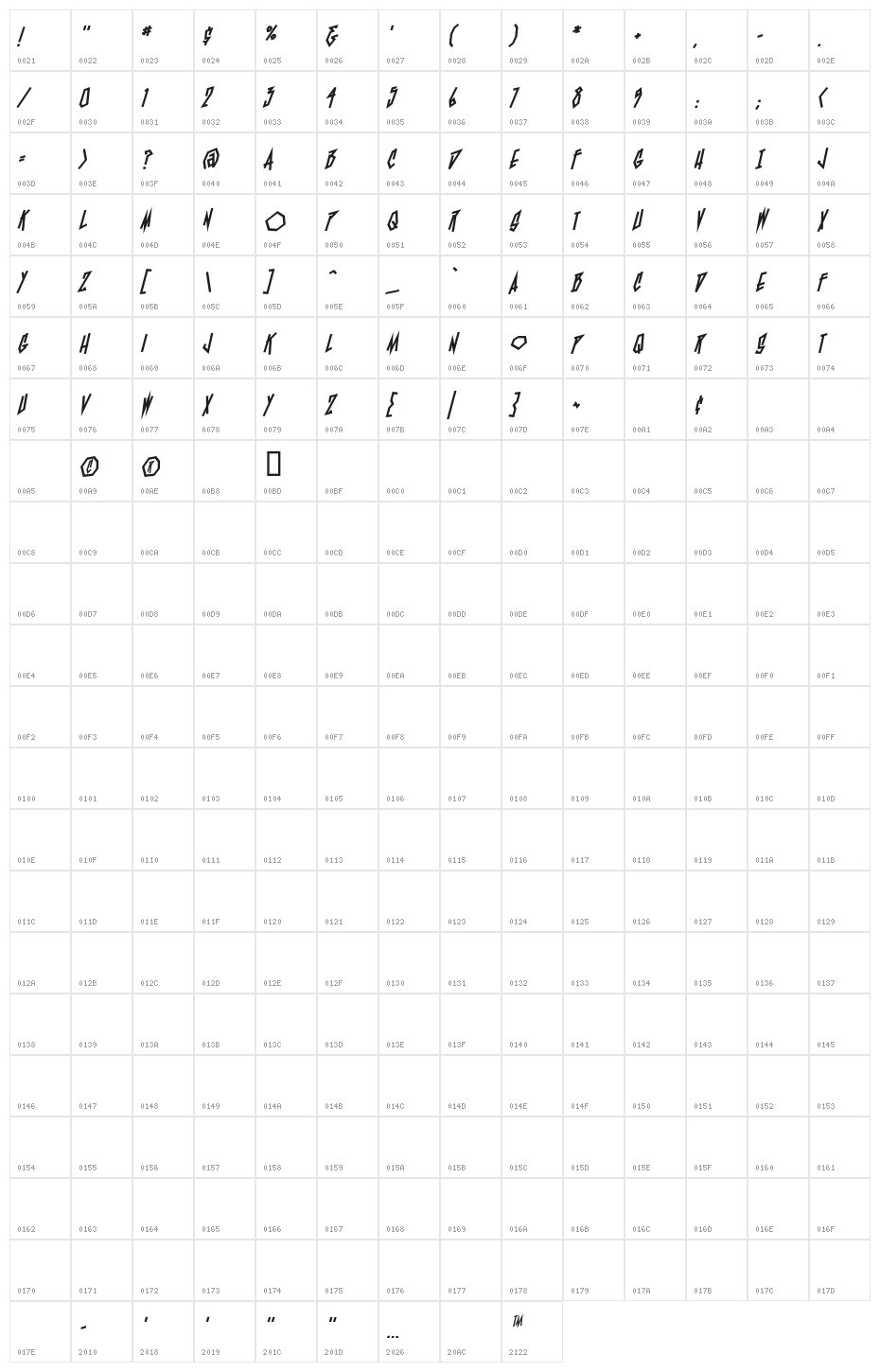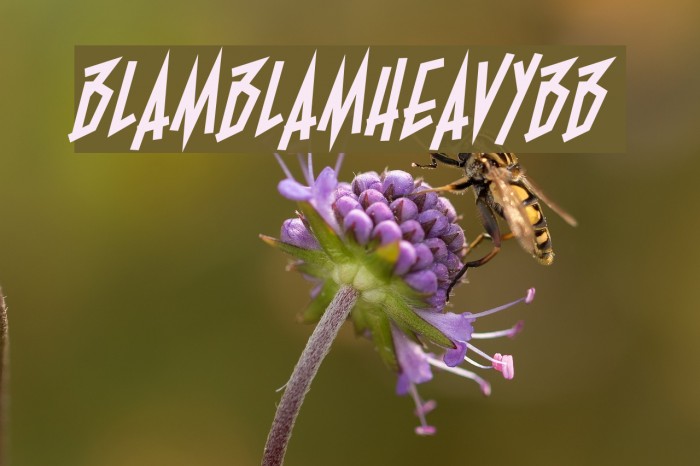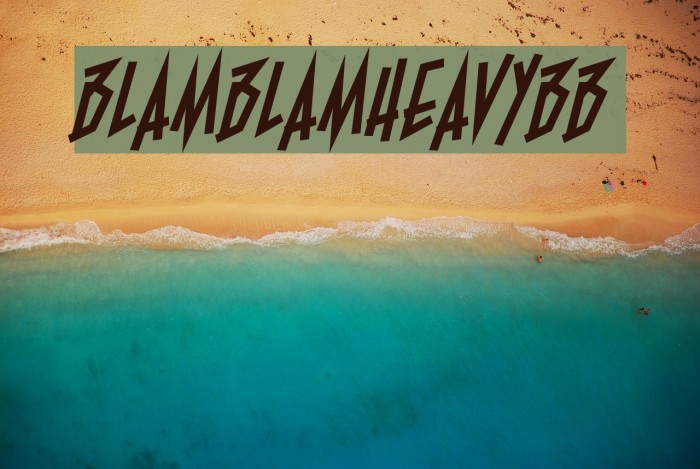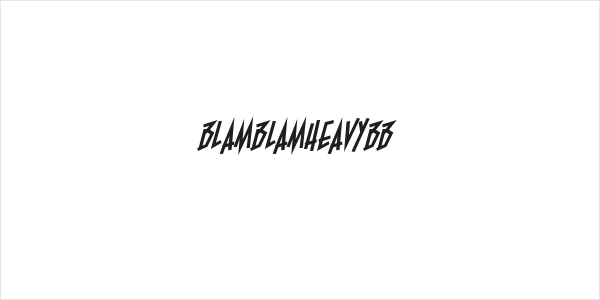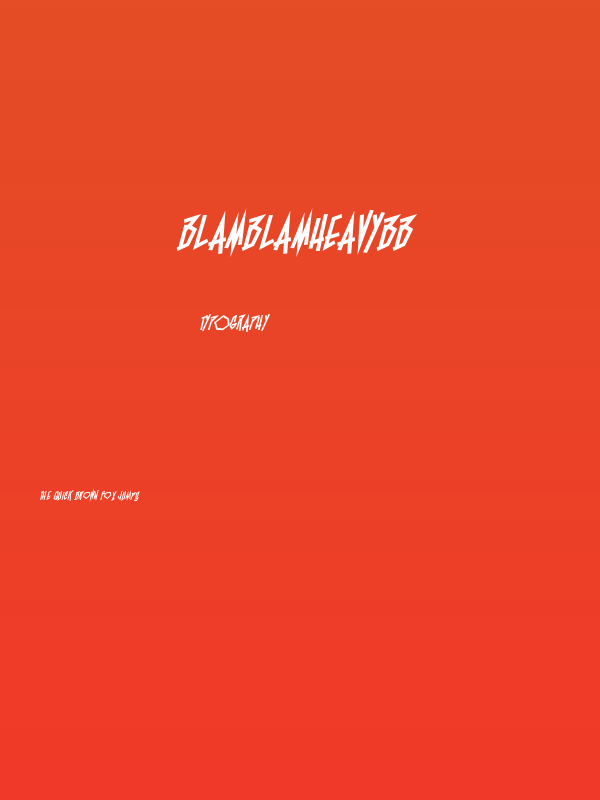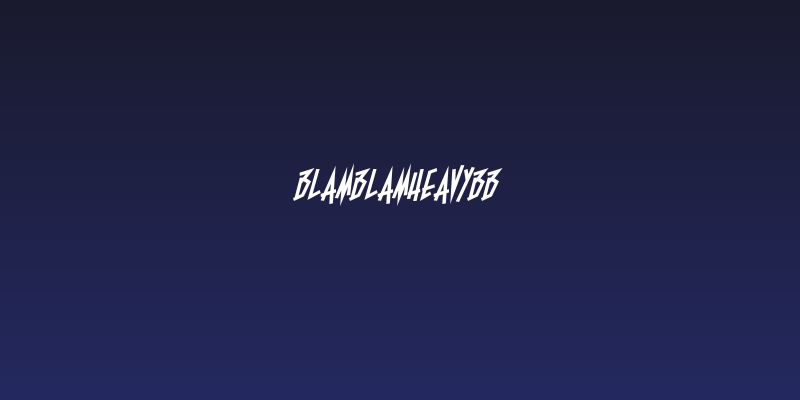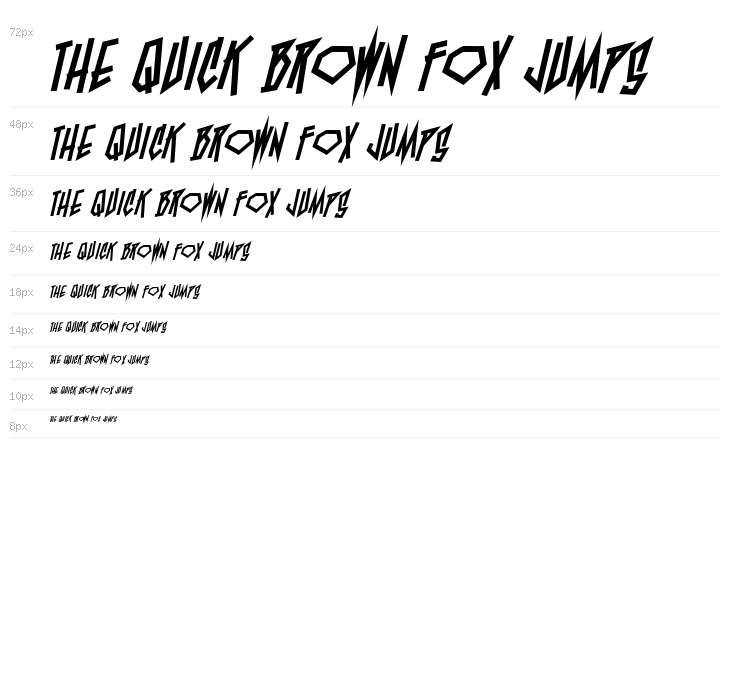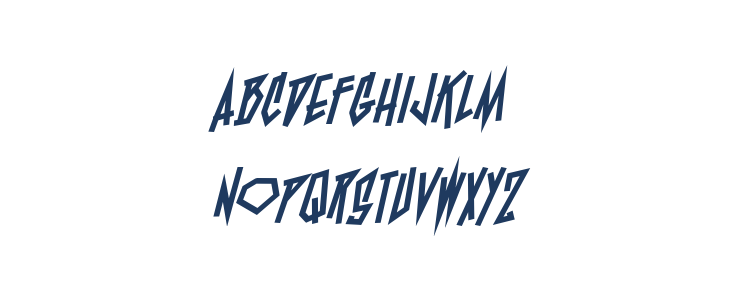
BlamBlamHeavyBB Font
BlamBlamHeavyBB Description
This font features a bold and dynamic design with sharp, angular edges that convey a sense of energy and movement. The characters are heavily stylized, with exaggerated points and a slightly condensed form, giving it a unique and aggressive appearance. The uppercase and lowercase letters maintain a consistent style, while the numerals and special characters complement the overall aesthetic. This font is ideal for projects that require a strong visual impact, such as posters, album covers, or branding for edgy and modern products.
Proposed ProjectsIdeal for posters, album covers, branding, and any project needing a strong visual impact.